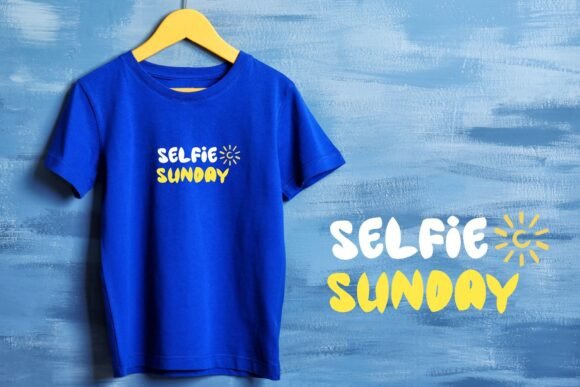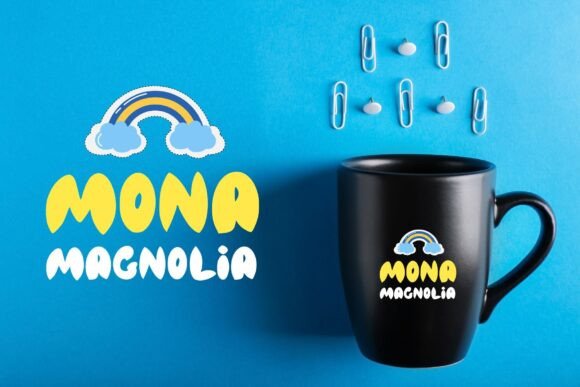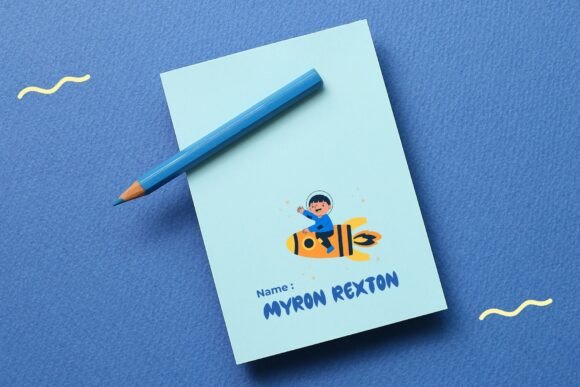
Introduction to Micke Font
Micke is a bold display font with a modern and dynamic style.
Ideal for logos, posters, and headlines, its striking design and clean lines ensure a strong visual impact in any creative project .
Key Features of Micke Font
Why Choose Micke Font?
Micke Font offers exceptional quality and versatility, making it a valuable addition to your design toolkit. Whether you’re creating for personal projects or commercial use, Micke Font delivers professional results.